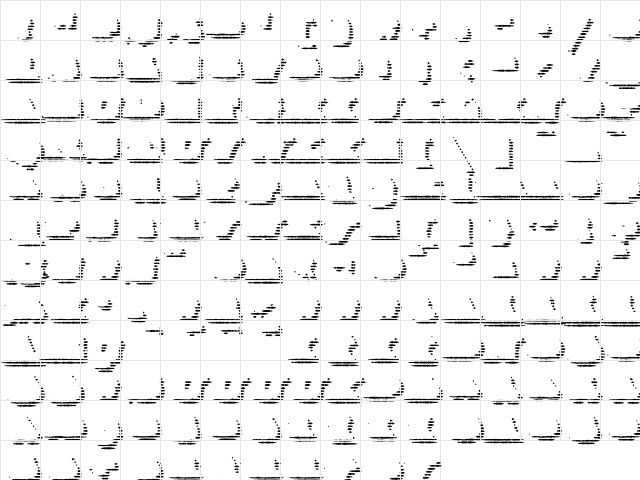
FederalSix HShadow
Design Context for FederalSix Typeface
FederalSix is built around its visual character rather than neutral utility — its distinctive forms are designed to make an impression at display sizes.
Font Pairing: Pair with a clean neutral sans-serif for body copy to let FederalSix's character lead without overwhelming the composition.
Pro Tip: Use FederalSix exclusively at display sizes — it was designed to be seen, not read at length. Let a neutral companion handle body copy.